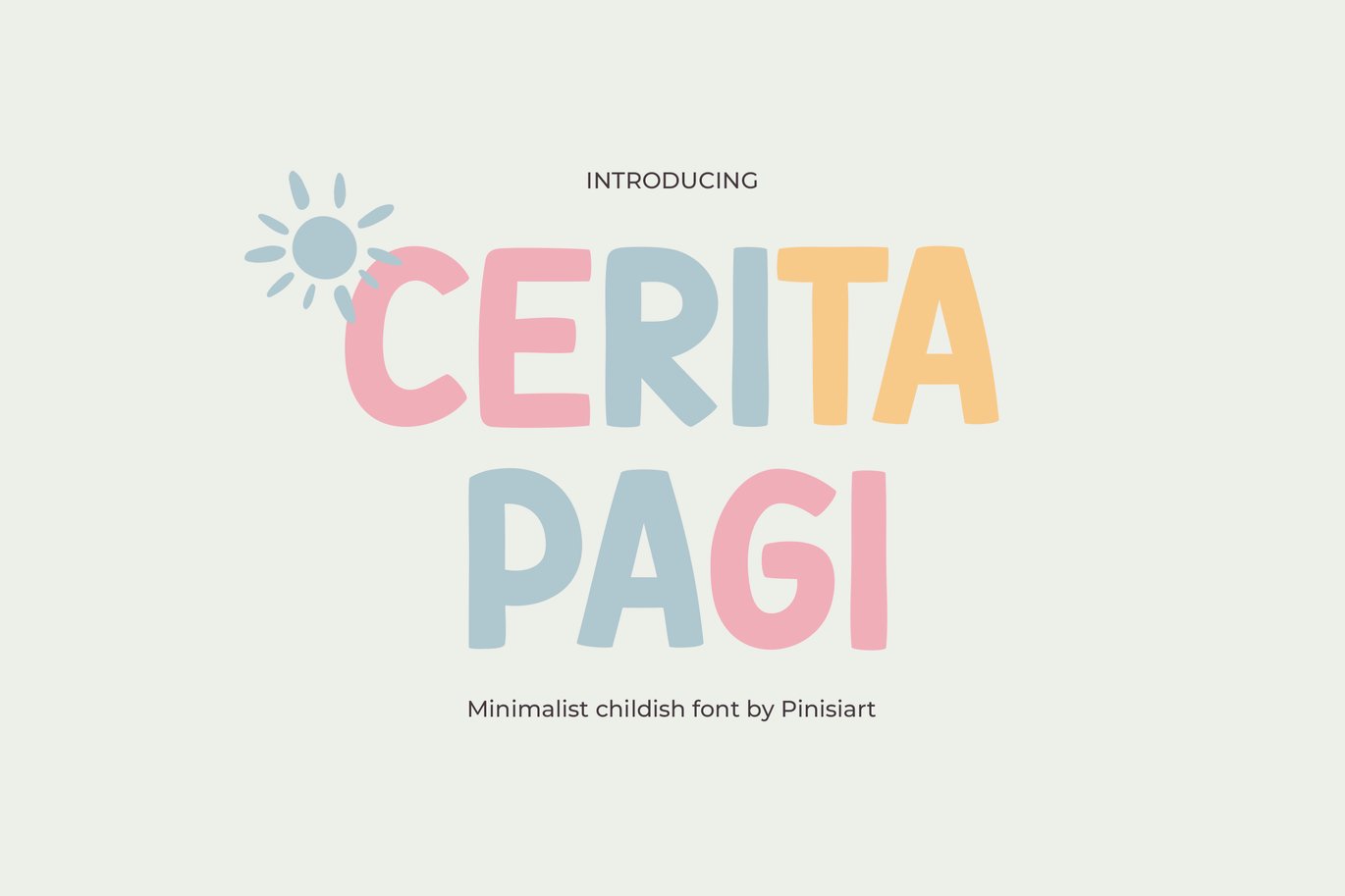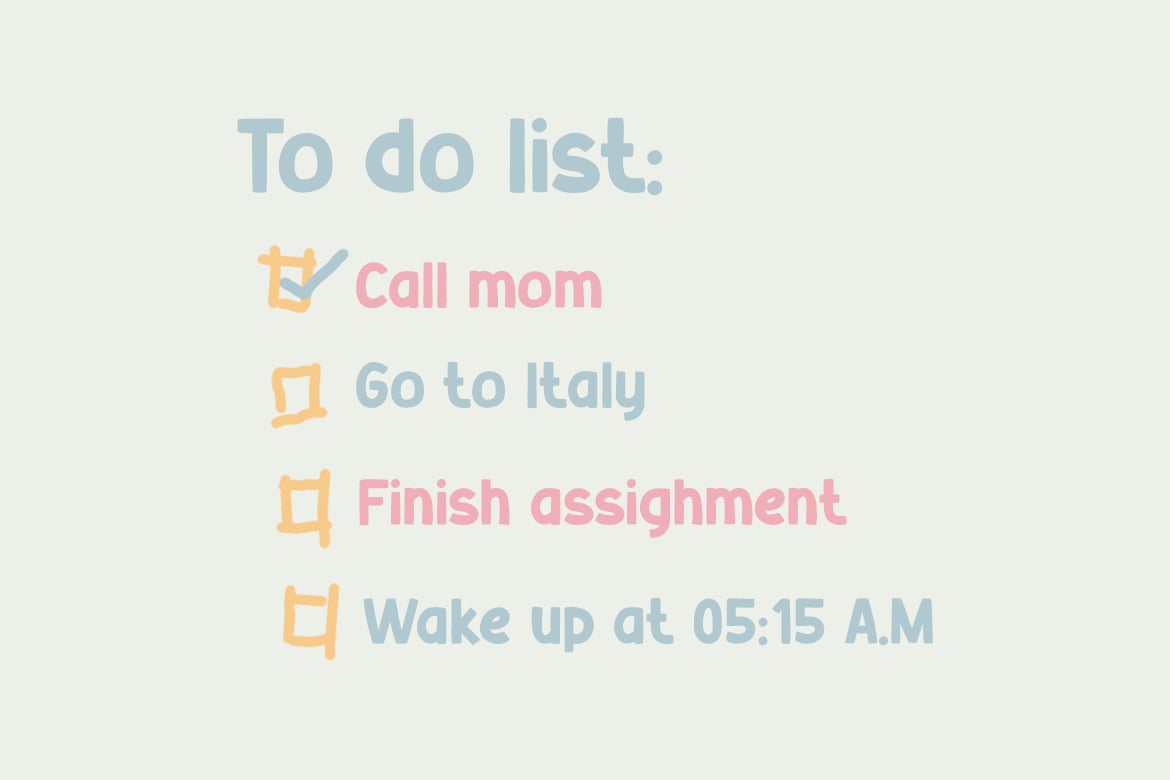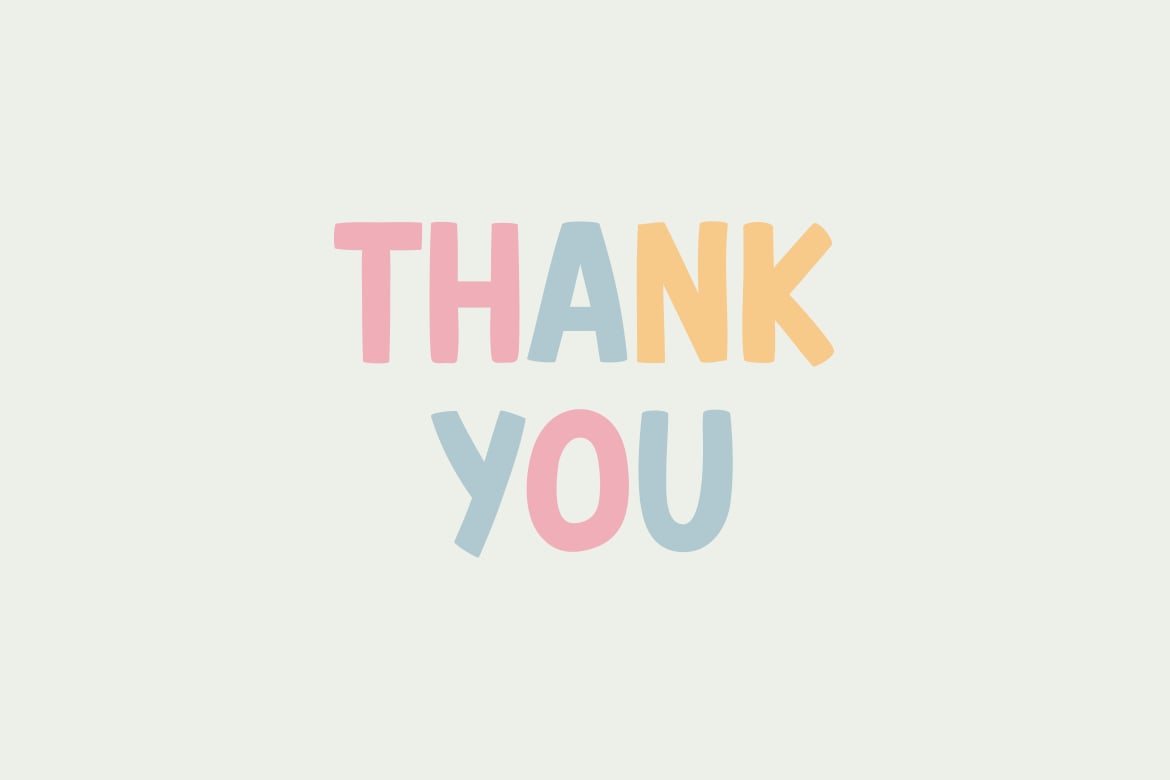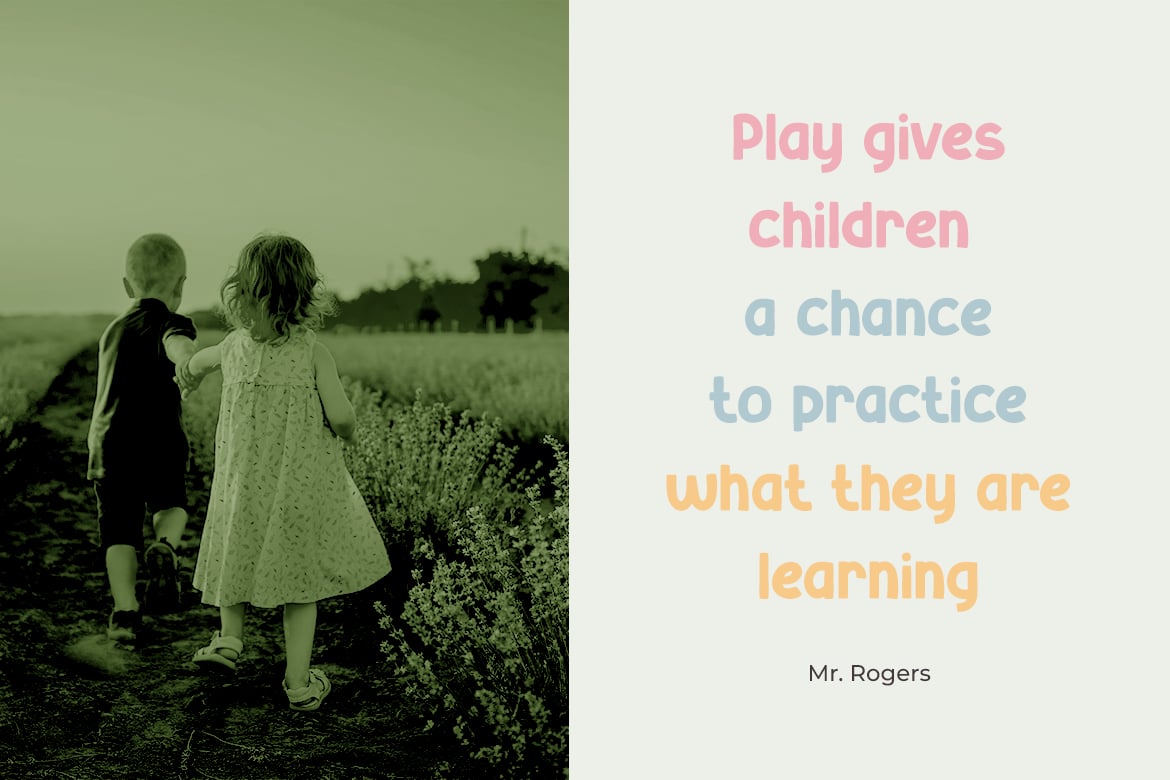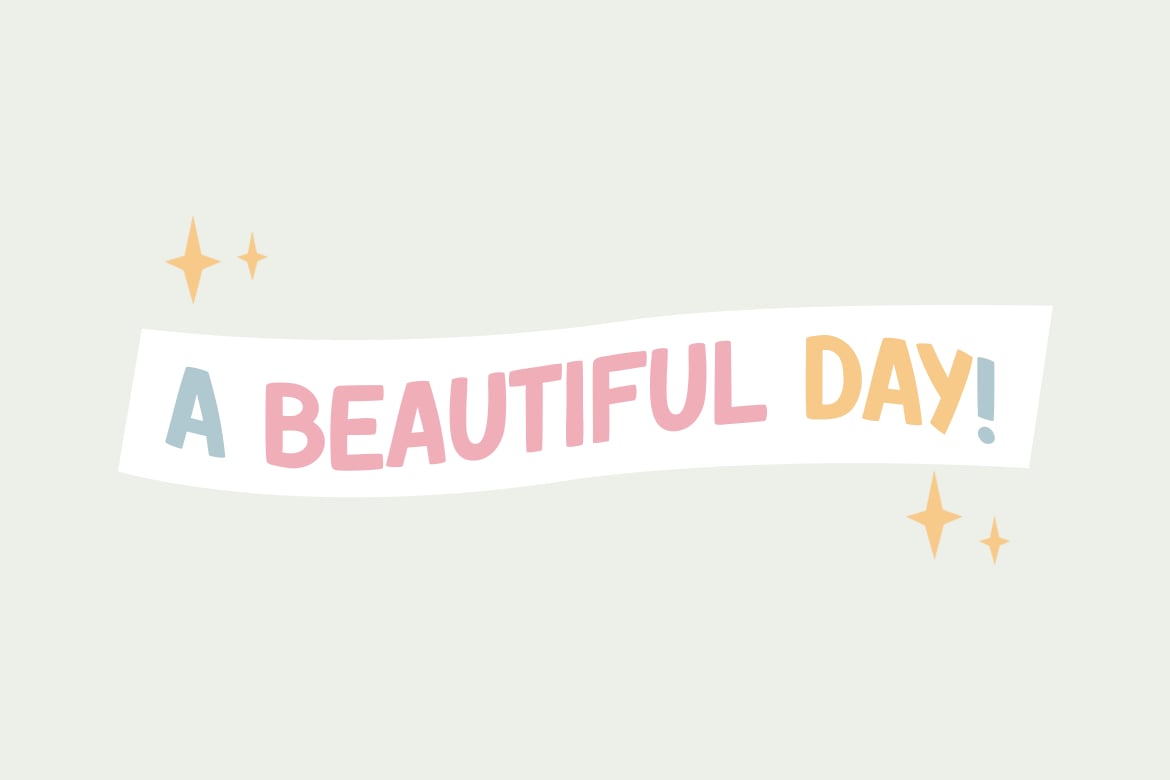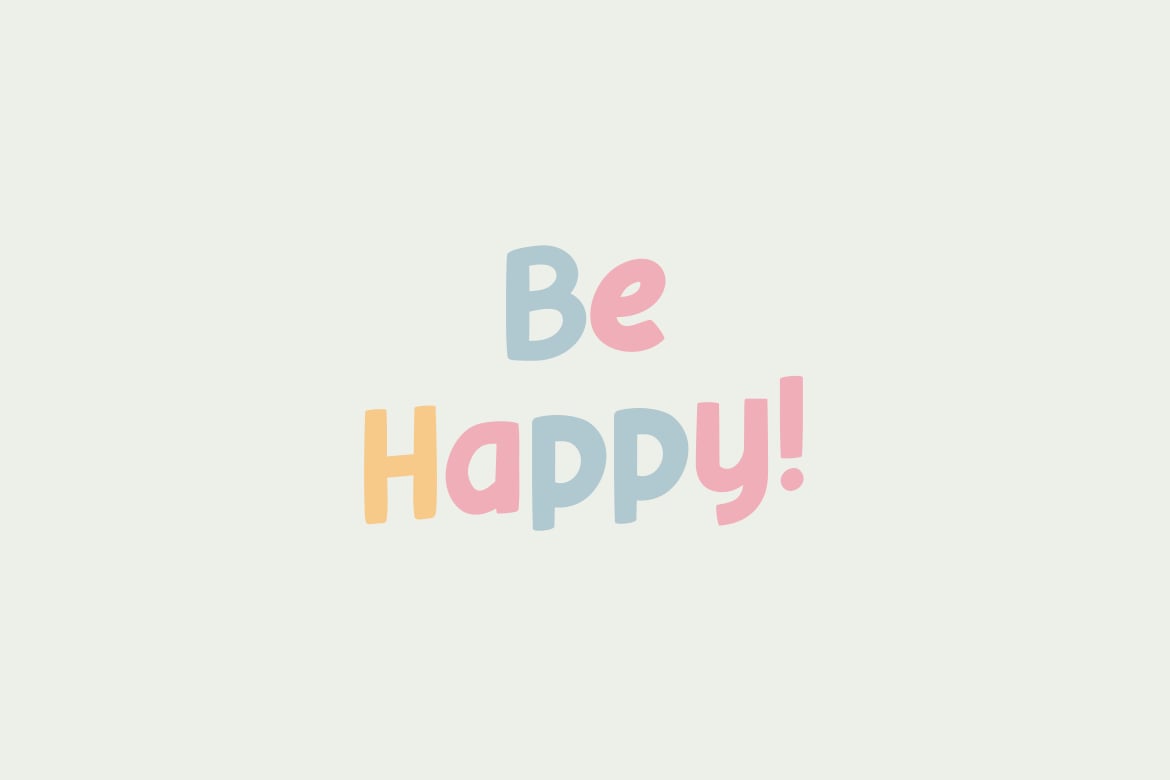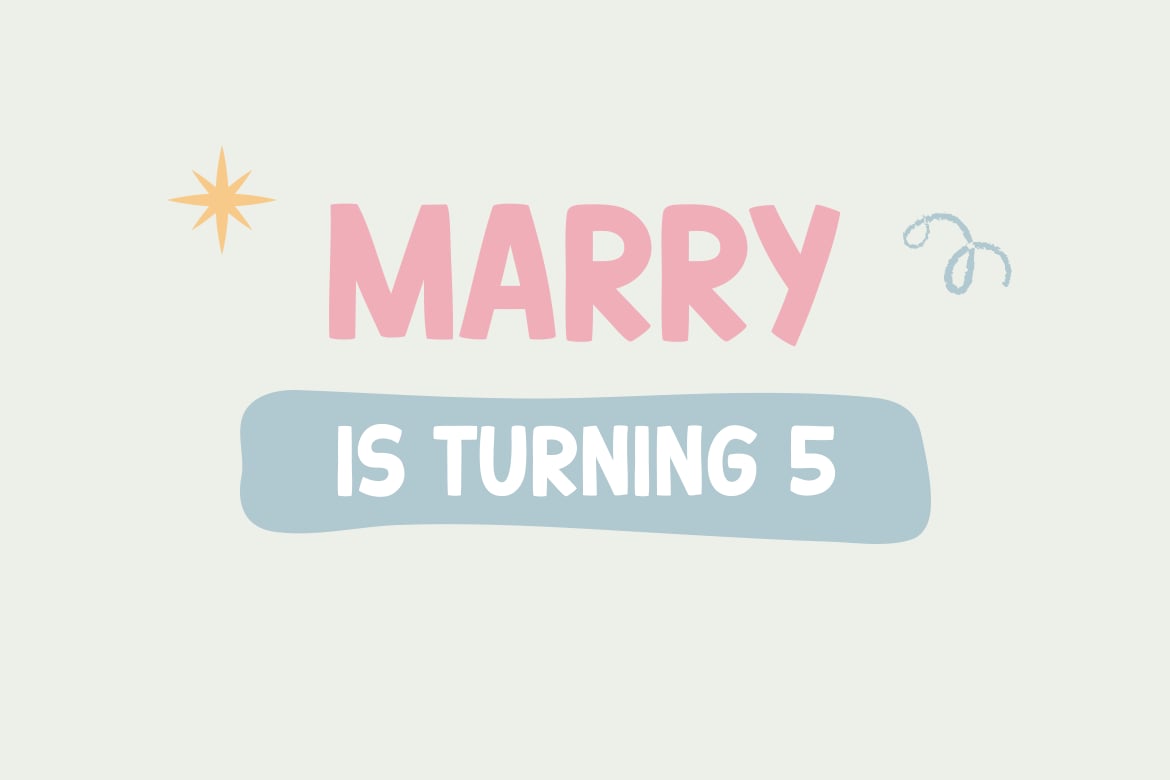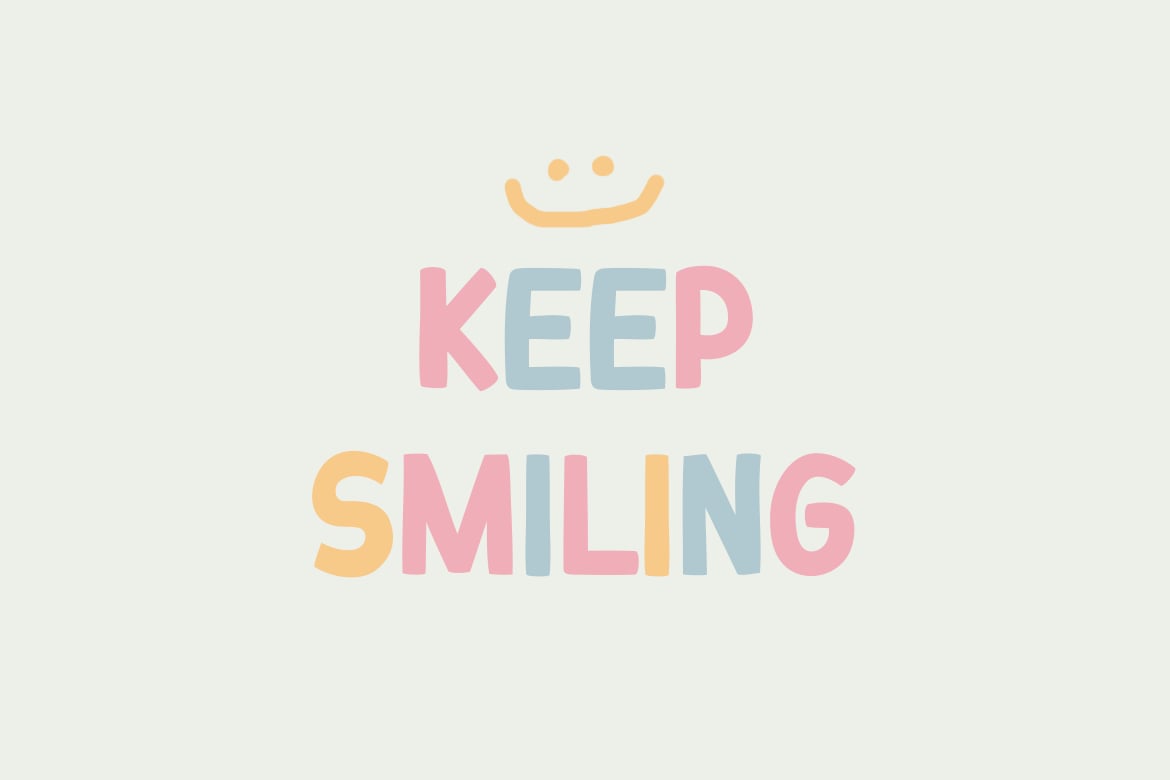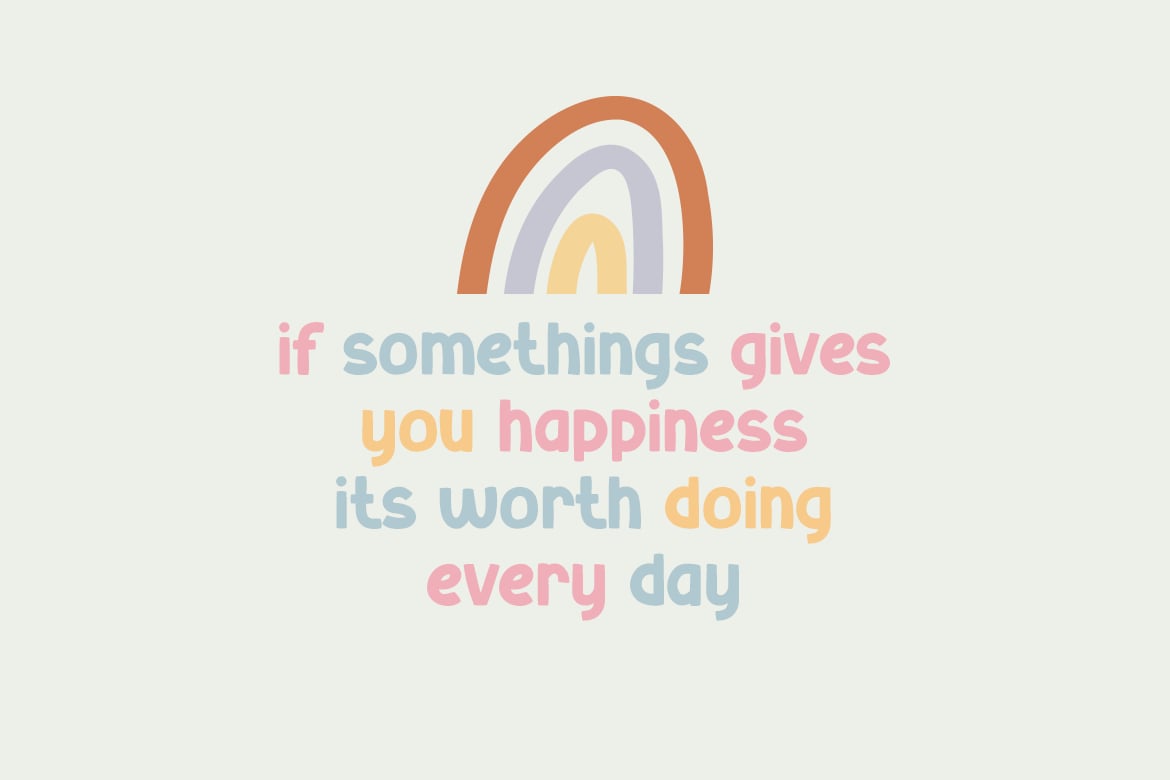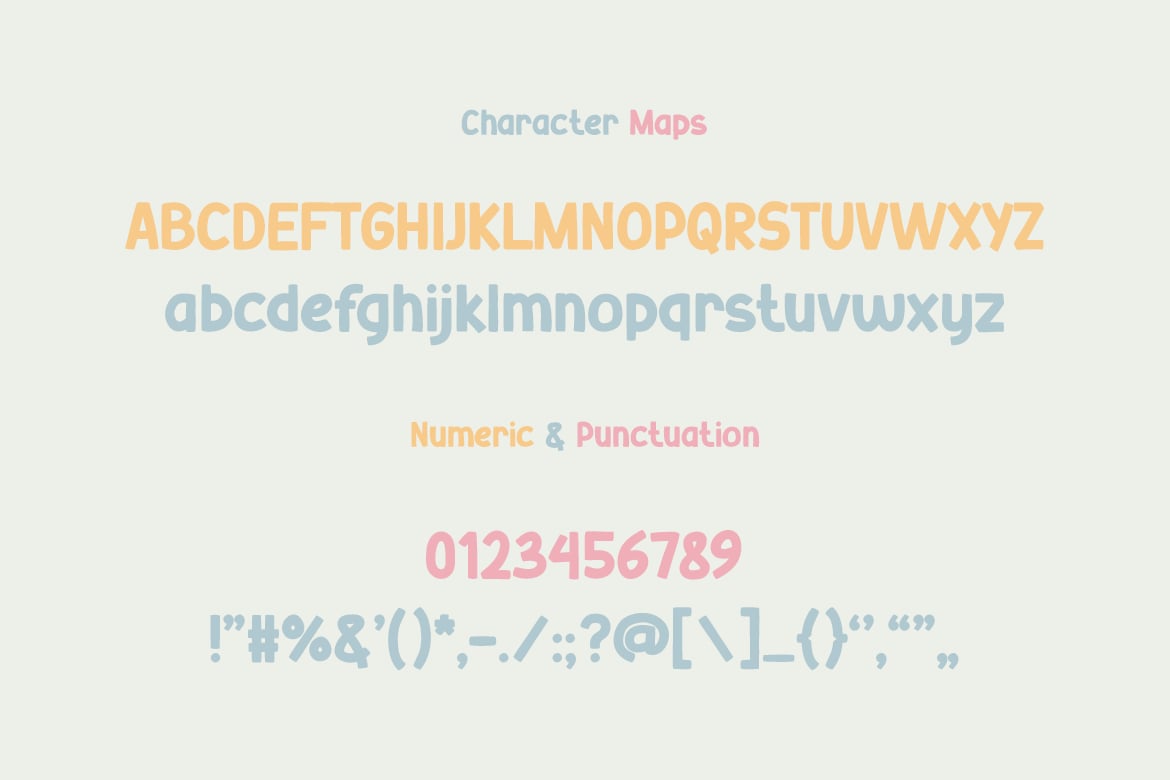
Cute Font – Cerita Pagi
“CERITA PAGI – Minimalist Childish Font” is your gateway to the world of modern simplicity and childlike charm. This font combines minimalist design sensibilities with playful elements, making it the perfect choice for a wide range of creative projects. Whether you’re designing children’s books, playful branding, or any content that requires a cute and fun touch, CERITA PAGI is your ideal font.
Its clean and playful characters capture the essence of modern minimalism while adding a touch of childlike whimsy. Embrace the delightful spirit of CERITA PAGI and watch as your designs come to life with a perfect blend of modernity and playful charisma. Elevate your content with a font that adds a touch of fun and creativity to every project.